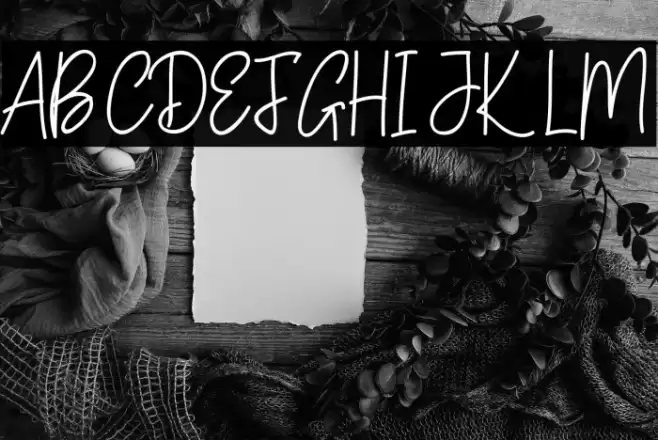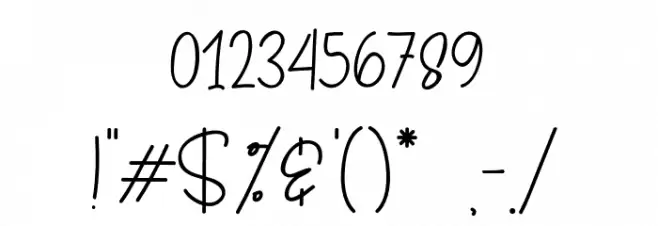
Amelia-Script Font
Amelia-Script Description
This font exudes a casual and playful elegance, characterized by its flowing, handwritten style. The letters are connected in a fluid manner, giving it a natural and organic feel. The uppercase letters maintain a consistent height, while the lowercase letters exhibit a slight slant, enhancing its script-like appearance. The numerals are clear and distinct, matching the overall style of the alphabet. Special characters are seamlessly integrated, maintaining the font's cohesive look. This font is perfect for projects that require a personal touch, such as invitations, greeting cards, or branding materials.
A casual, flowing handwritten script with elegant, connected letters from Uncategorized fonts.
- Font: Amelia-Script
- Proposed Projects: Ideal for invitations, greeting cards, personal branding, and creative projects.
- Overall Style: Casual, Elegant
- Use Case: Logos, Invitations, Greeting Cards